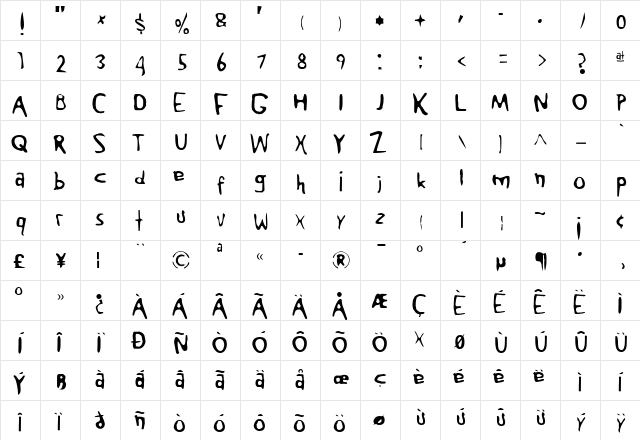
Secretary Medium
Design Context for Secretary Typeface
Secretary is a composed and adaptable typeface that performs quietly and consistently across a wide range of design contexts.